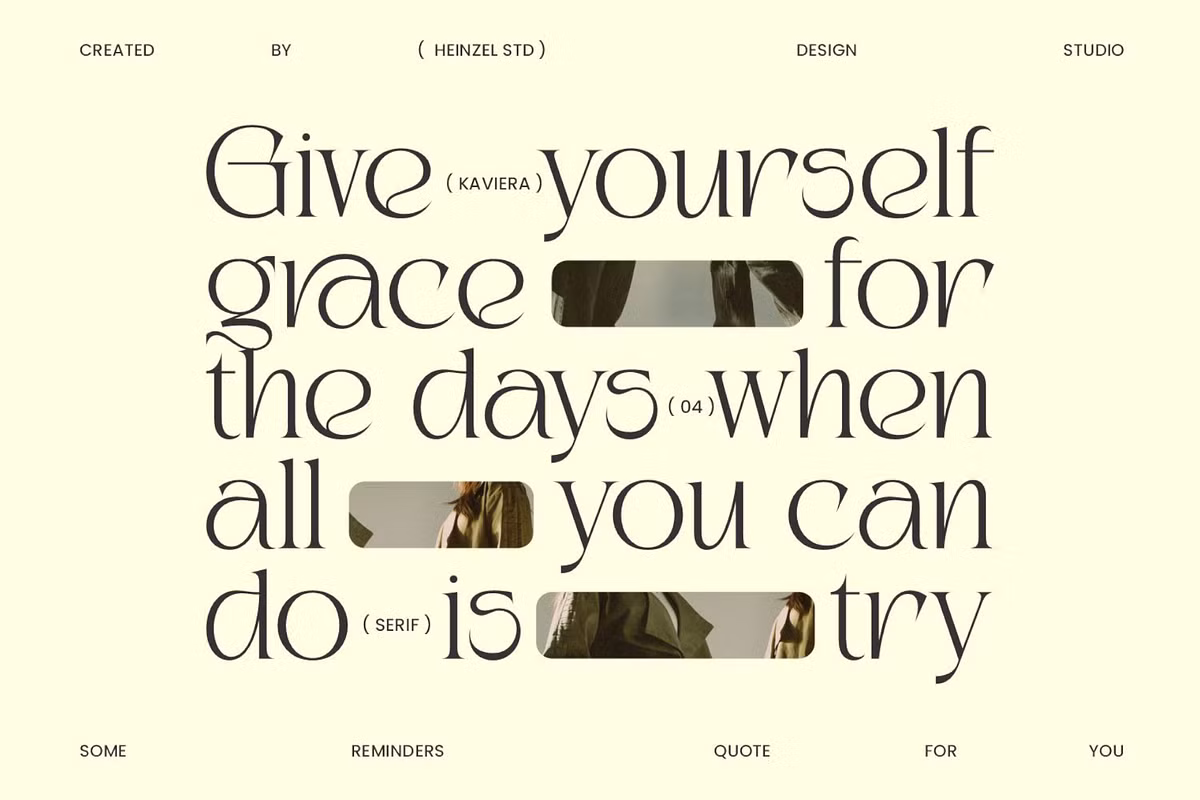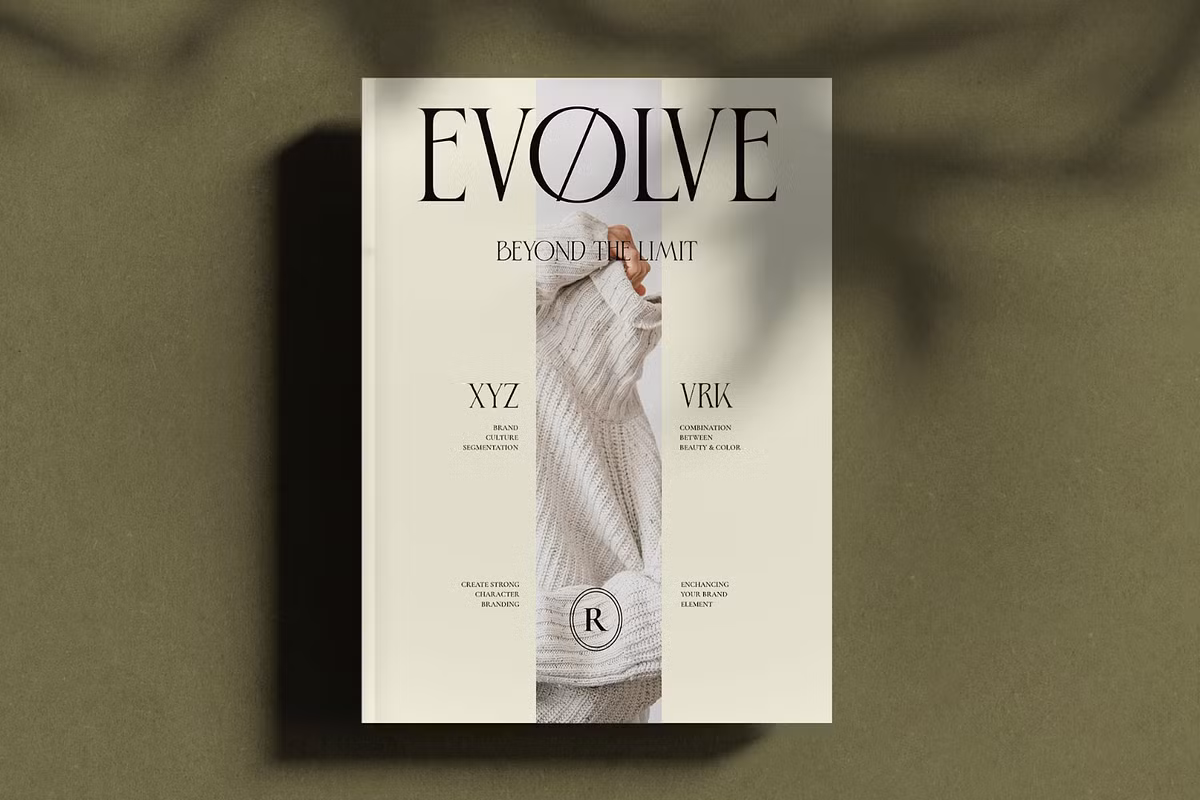
Kaviera Modern Stylish Serif Font: Elegant Typeface for Fashion & Branding
Kaviera is a really stylish font that brings together classic and modern looks. It’s perfect for brands that want to look high-end and fashionable. The font has beautiful lines, smooth curves, and a nice balance of thick and thin strokes, which makes it stand out. This makes Kaviera a great choice for lots of different projects, especially in the fashion and luxury worlds. It’s elegant, but also fun and expressive, which is just what many designers are looking for. Whether you’re working on a magazine, a website, or a brand’s identity, Kaviera is a font that can help you create something truly special.
Kaviera’s design is a mix of old and new, blending classic serif features with modern style. The letters are elegant and have soft curves, giving them a warm and friendly feel. But they also have strong contrasts in line thickness, which makes them stand out. This balance of classic and modern elements makes Kaviera look great and work well for many different uses. The combination of warmth and boldness in its design gives Kaviera a unique charm that can capture people’s attention. Overall, Kaviera’s thoughtful design makes it a great choice for a wide range of applications, from traditional to modern projects.
The way Kaviera is designed gives it a fresh look that’s still connected to classic serif fonts. This means it’s easy to read, but also looks really stylish and modern. It doesn’t matter if you’re using it for big headings or smaller text, Kaviera makes every word look fancy. The overall look is great for brands that want to show they’re high-end, but also modern and trendy.
Character Sets
Kaviera has a really big set of characters, which makes it super useful for lots of different languages and design projects. It’s got all the basics like uppercase and lowercase letters, numbers, and punctuation marks, so you can use it for pretty much any kind of text you need. The best part is, it’s not just limited to English – it’s also got accents and special characters, which makes it perfect for designers who need to work with text in different languages. This means Kaviera is a great choice for projects that need to be used all around the world, and it can help make your designs more accessible to people who speak different languages. Overall, Kaviera’s big character set makes it really versatile and useful for a wide range of design needs.
Kaviera is a great tool for designers because it has extra characters and special letter combinations that can be used to make their work more unique. This is really helpful when working on branding projects, where having a distinct look is important. Using Kaviera, designers can easily make custom logos, headings, and other text elements that grab attention in a busy market. It gives them the freedom to experiment and add a personal touch to their designs, which can make a big difference in making a brand stand out.
Use Cases
Kaviera is really versatile, which makes it perfect for a lot of different uses, especially in the fashion and luxury worlds. Let’s take a look at some of the ways it’s being used:
- Fashion Branding: Kaviera’s elegant design is perfect for fashion labels aiming to create a sophisticated brand identity.
- Editorial Design: Magazines and online publications can utilize Kaviera for striking headlines and body text that captivate readers.
- Luxury Logos: The refined letterforms of Kaviera lend themselves well to logo design, providing a polished presence that speaks to quality.
- Packaging Design: Whether for high-end products or artisanal goods, Kaviera can elevate packaging aesthetics, making products more appealing on retail shelves.
- High-End Digital Projects: Websites and digital marketing materials benefit from Kaviera’s modern aesthetic, ensuring a cohesive brand experience across platforms.
When working with Kaviera, pairing it with complementary typefaces can enhance your design’s overall impact. Here are some pairing suggestions:
- Sans Serif Pairing: Pair Kaviera with a clean sans serif font like Montserrat or Open Sans for a modern contrast that balances elegance with minimalism.
- Script Fonts: Combine Kaviera with a delicate script font like Great Vibes to add a touch of whimsy and romance to invitations or fashion campaigns.
- Geometric Fonts: For a contemporary feel, pairing Kaviera with a geometric sans serif like Poppins can create a unique juxtaposition that appeals to modern audiences.
- Display Fonts: Use a bold display font for headings alongside Kaviera to create a dynamic visual hierarchy in marketing materials.
Kaviera is not just a fancy font, it’s a game-changer for your creative projects. This stylish serif font has a lot to offer – it’s elegant, versatile, and can be paired with lots of other fonts. That’s why it’s a top pick for fashion brands and high-end magazines. When you use Kaviera, you can create a look that’s both modern and timeless. It’s perfect for designing logos, packaging, or online content that needs to make a big impact. With Kaviera, you can add a touch of sophistication to your work and really make it stand out. Whether you’re going for a classic look or something more trendy, Kaviera is a great choice. It’s a powerful tool that can help you take your projects to the next level and leave a lasting impression on your audience.